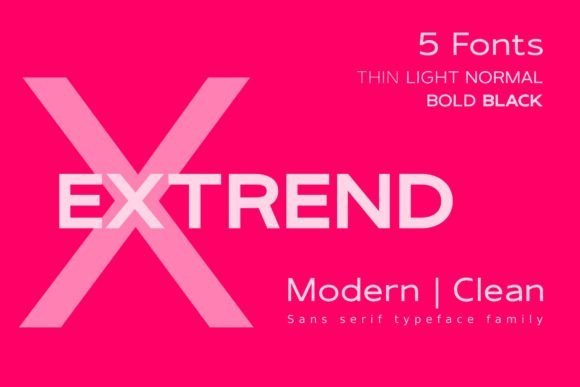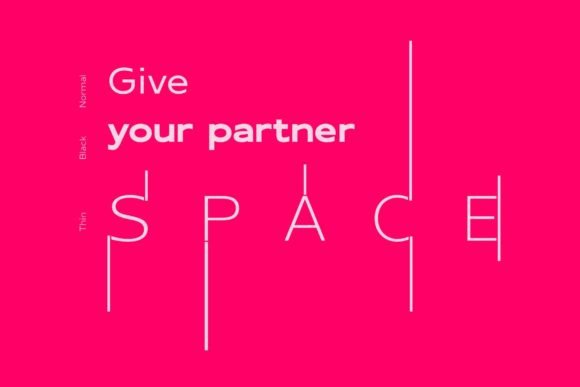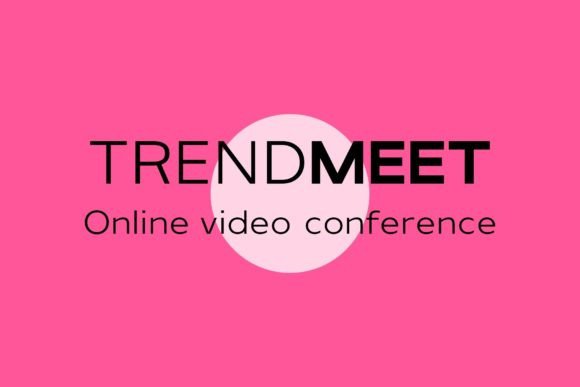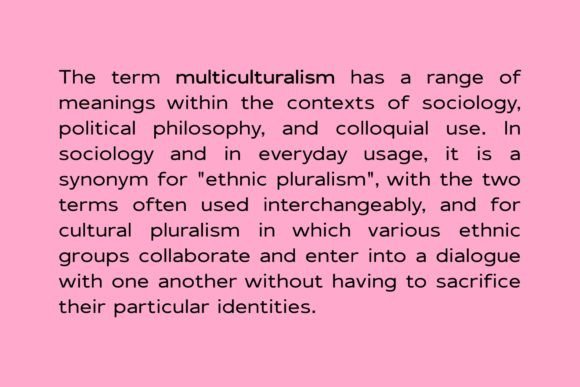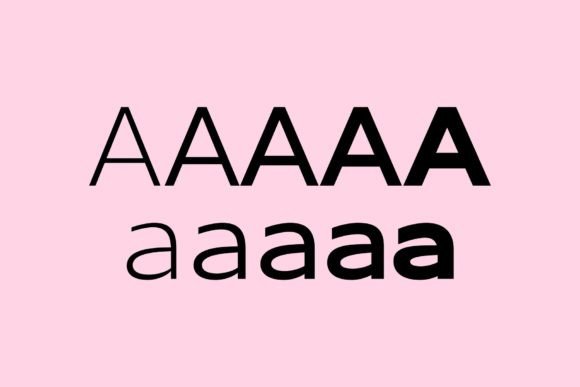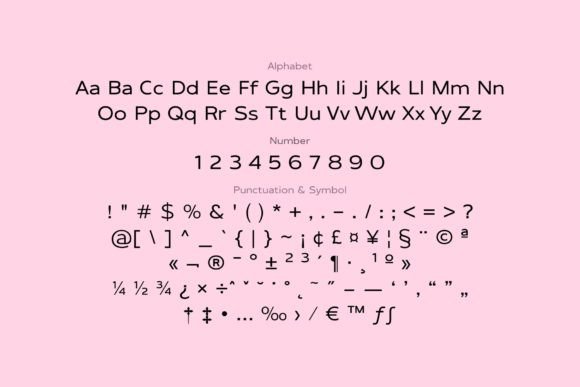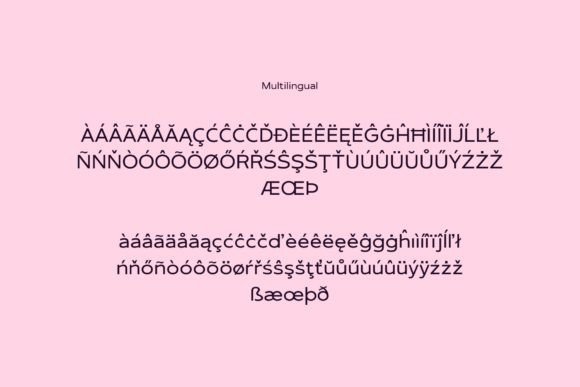
The Birth of a New Design Era: Introducing the Extrend Font
You’ve spent hours perfecting your design, pouring your heart and soul into every detail. The moment of truth arrives, and you’re about to unveil your masterpiece to the world. But, have you considered the one thing that can make or break your design’s impact? The font, of course!
That’s where the Extrend Font comes in – a modern and elegant sans-serif font designed to elevate your project to new heights. With its clean lines, open shapes, and subtle curves, it’s the perfect addition to any logo, headline, or design element. Whether you’re a seasoned designer or just starting out, the Extrend Font is an invaluable tool that will help you create a timeless and contemporary look that’s sure to make your work stand out from the crowd.
Key Features of Extrend Font
- Font Family: Extrend is a sans-serif font family with 12 styles, including light, regular, bold, and italic weights.
- Character Set: Supports a wide range of languages, including Latin, Cyrillic, and Greek alphabets, making it a versatile choice for multilingual designs.
- Unique Characteristics: Features a clean and modern design, with a subtle rounded edge and a high x-height, making it highly legible and suitable for body text and headings.
Extrend Font Review
As a designer, I’ve had the chance to work with Extrend Font, and I’m excited to share my honest thoughts with you. Here’s what I think works well:
- ✨ Unique style: Extrend Font has a distinctive, modern aesthetic that’s perfect for brands looking to stand out. The bold, sans-serif design is great for headings and titles.
- ✨ Versatile: This font is suitable for a wide range of applications, from digital interfaces to print materials. Its legibility makes it a great choice for body text as well.
- ✨ Customizable: Extrend Font offers various weights and styles, allowing designers to experiment with different looks and feels.
- ⚠️ Limited language support: Extrend Font may not be as comprehensive in terms of language support as other fonts, which could be a concern for global brands.
- ⚠️ Limited script support: The font doesn’t have a script version, which might be a drawback for designers who need to create elegant, handwritten text.
- ⚠️ Not ideal for small text: While Extrend Font is highly legible, it may not be the best choice for small text due to its bold design.
Overall, Extrend Font is a solid choice for designers who want a modern, unique look. While it has its limitations, it’s a great option for brands looking to make a statement. With careful consideration of its strengths and weaknesses, you can effectively use Extrend Font in your next project.
Tips for Getting the Most Out of Extrend Font
Use Extrend Font to add a touch of elegance and sophistication to your designs.
Pair Extrend Font with other elegant fonts to create a harmonious design.
Use Extrend Font for:
Business cards and corporate branding
Magazine and book titles
Alternatives to Extrend Font for Designers
Open Sans is a modern sans-serif font designed by Steve Matteson. It is ideal for use in digital interfaces, such as websites and mobile applications. It is highly legible and works well in a variety of font sizes.
Compared to Extrend Font, Open Sans has a more neutral and minimalist design, making it suitable for a wide range of applications. Extrend Font has a more dramatic and stylized feel, while Open Sans is more versatile and easier to read.
Montserat is a sans-serif font designed by Julieta Ulanovsky. It is inspired by the urban typography of the Montserrat neighborhood in Buenos Aires. It is ideal for use in headings and titles, where a bold and modern feel is desired.
Compared to Extrend Font, Montserrat has a more geometric and grid-based design, giving it a strong and modern feel. Extrend Font has a more organic and stylized feel, while Montserrat is more structured and clean.
Can I customize the Extrend Font using font editing software or plugins?
While the Extrend Font is not designed to be heavily modified, you can use font editing software like FontForge or Glyphs to make minor adjustments, such as adding custom glyphs or modifying existing ones. However, please note that making significant changes may affect the font’s overall balance and readability.